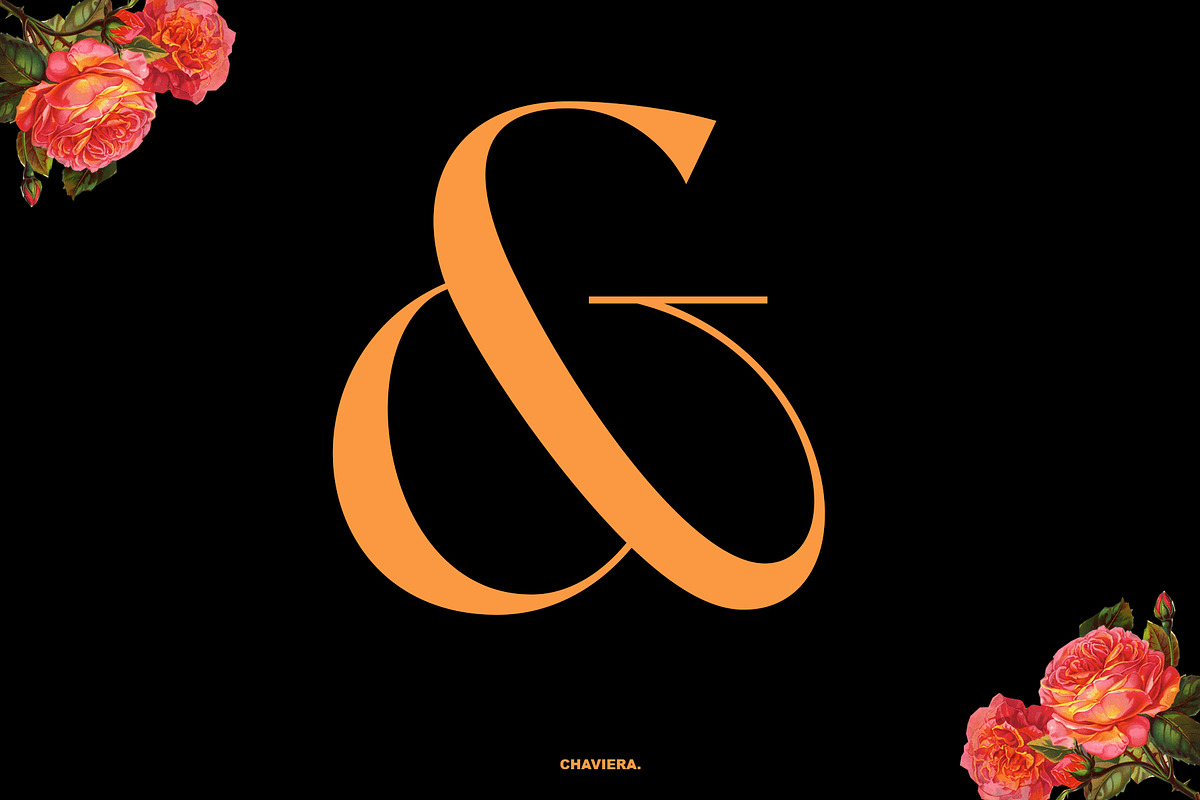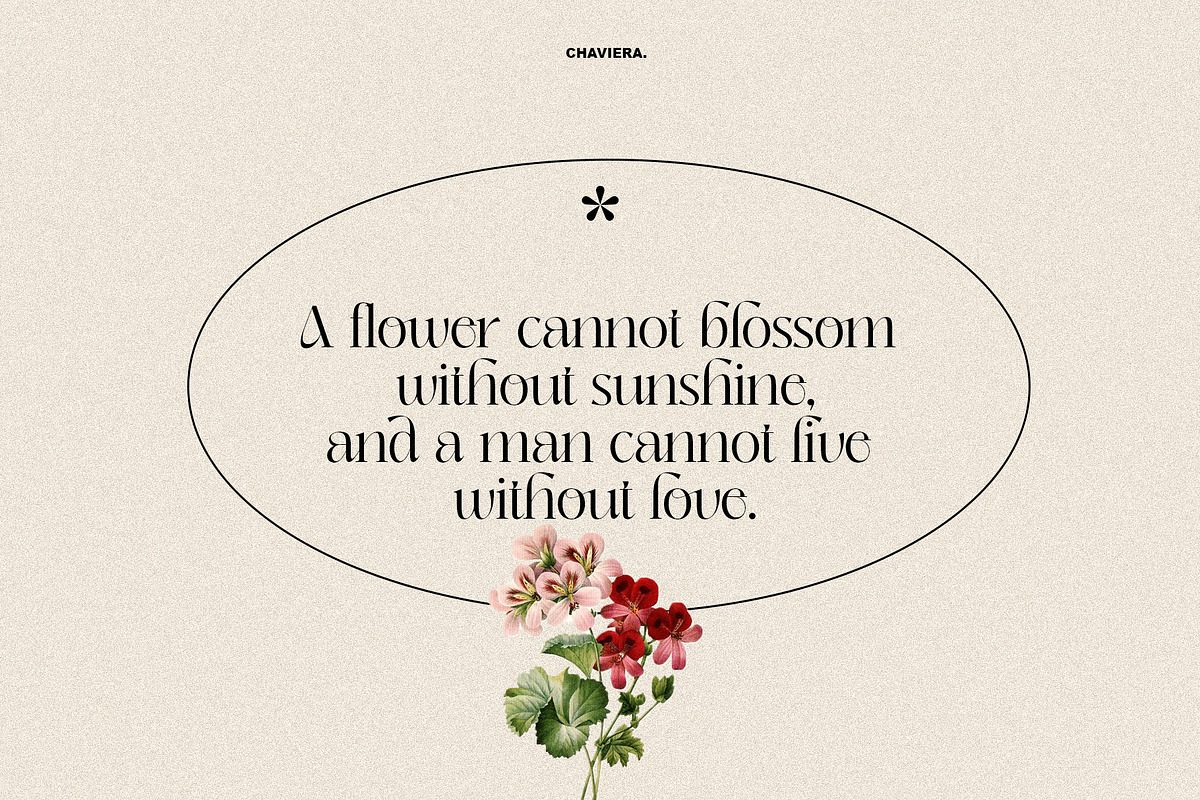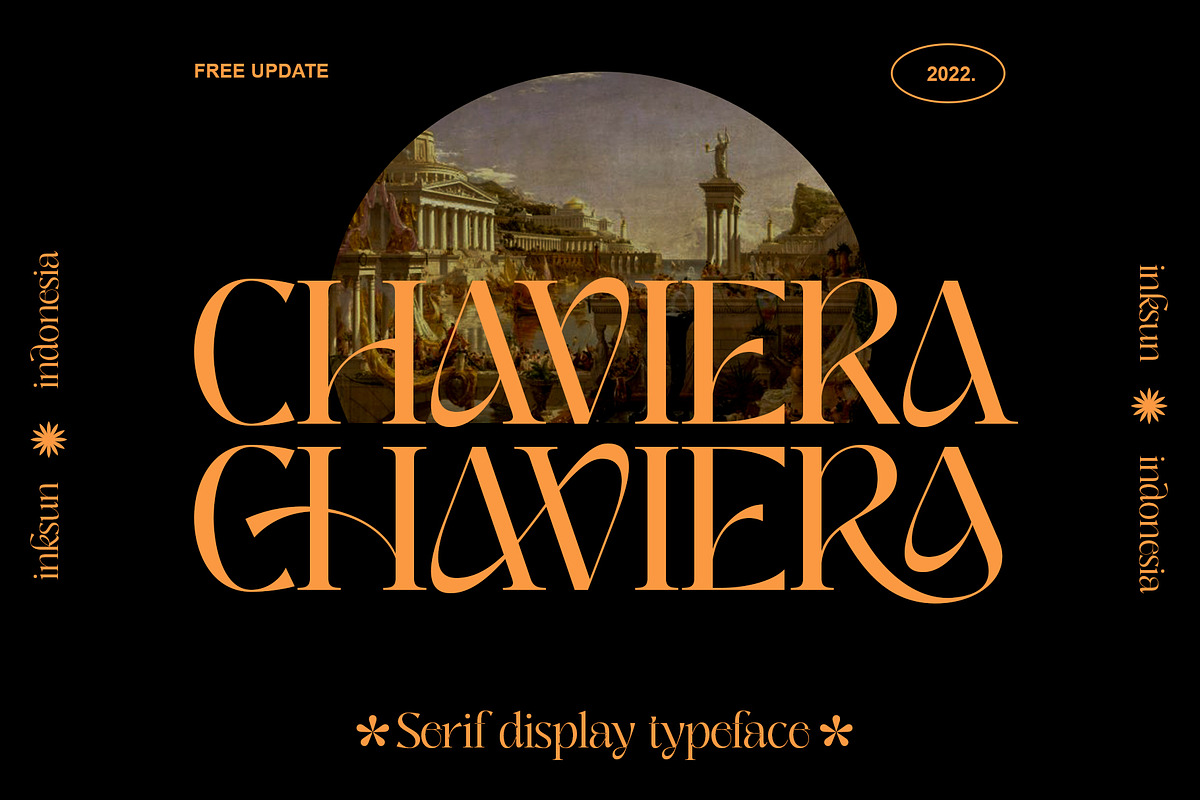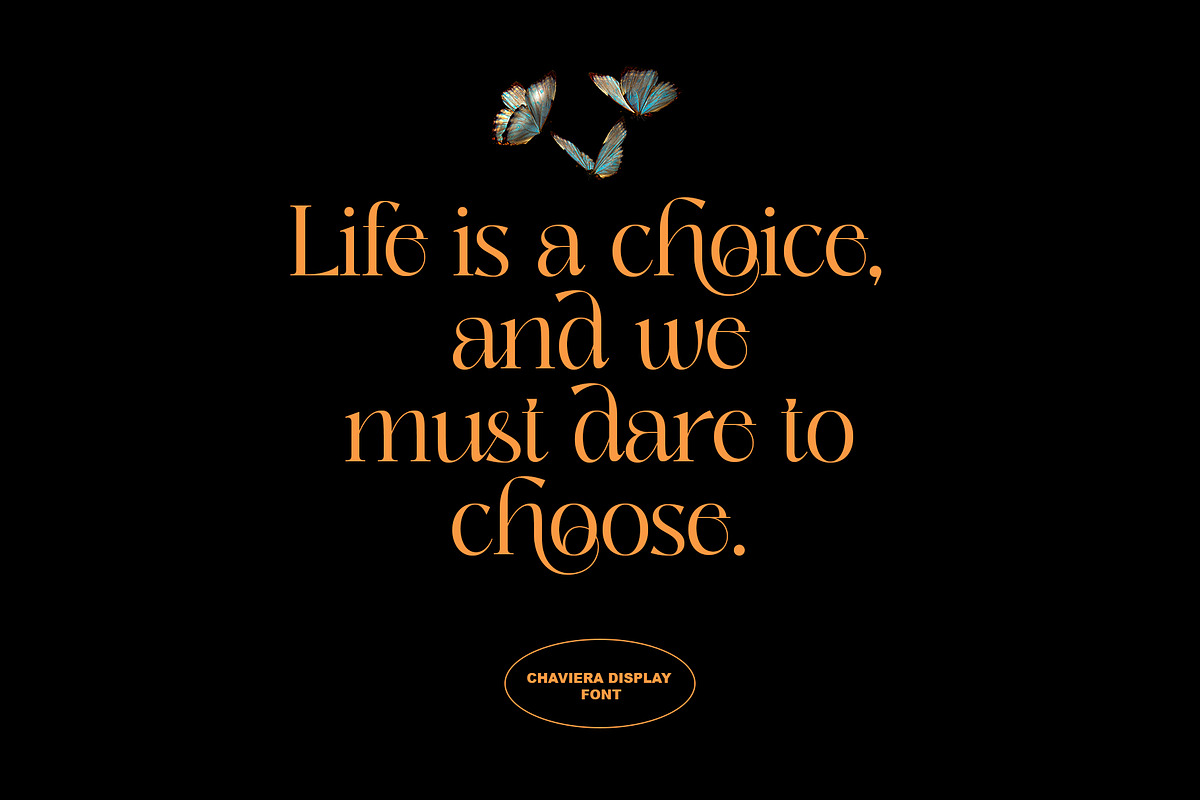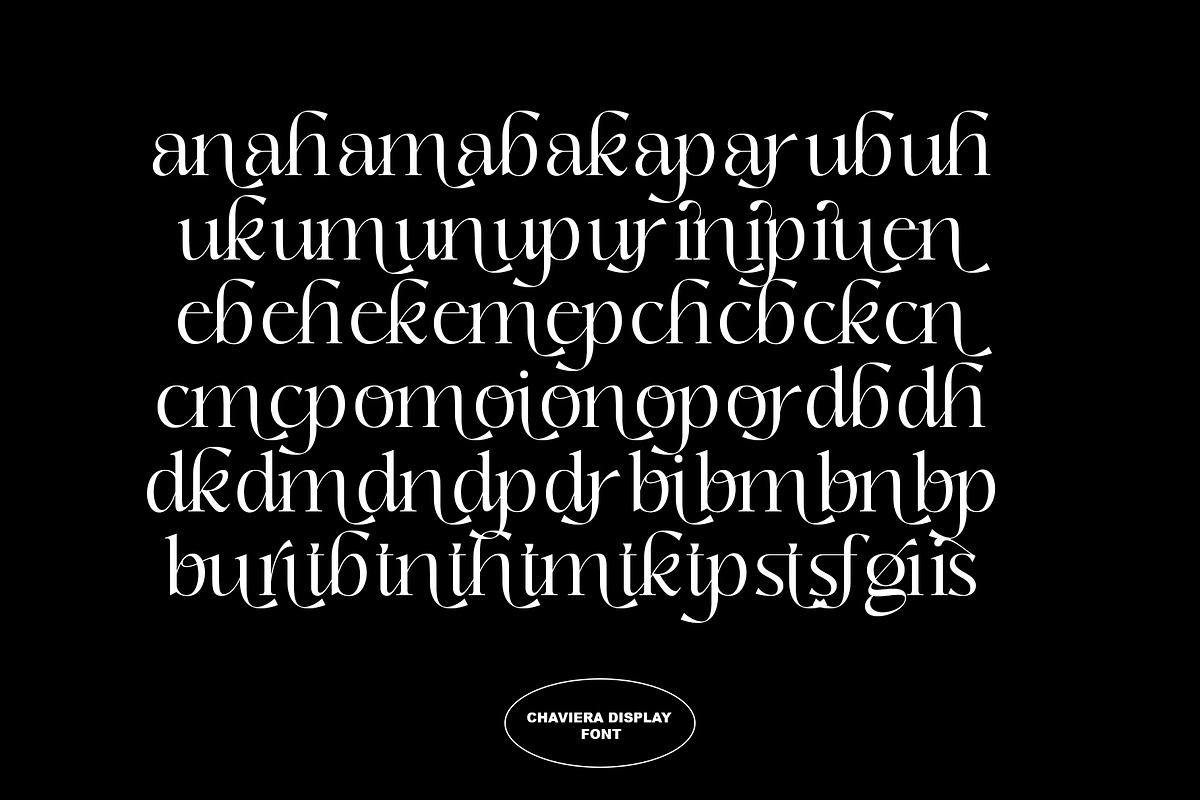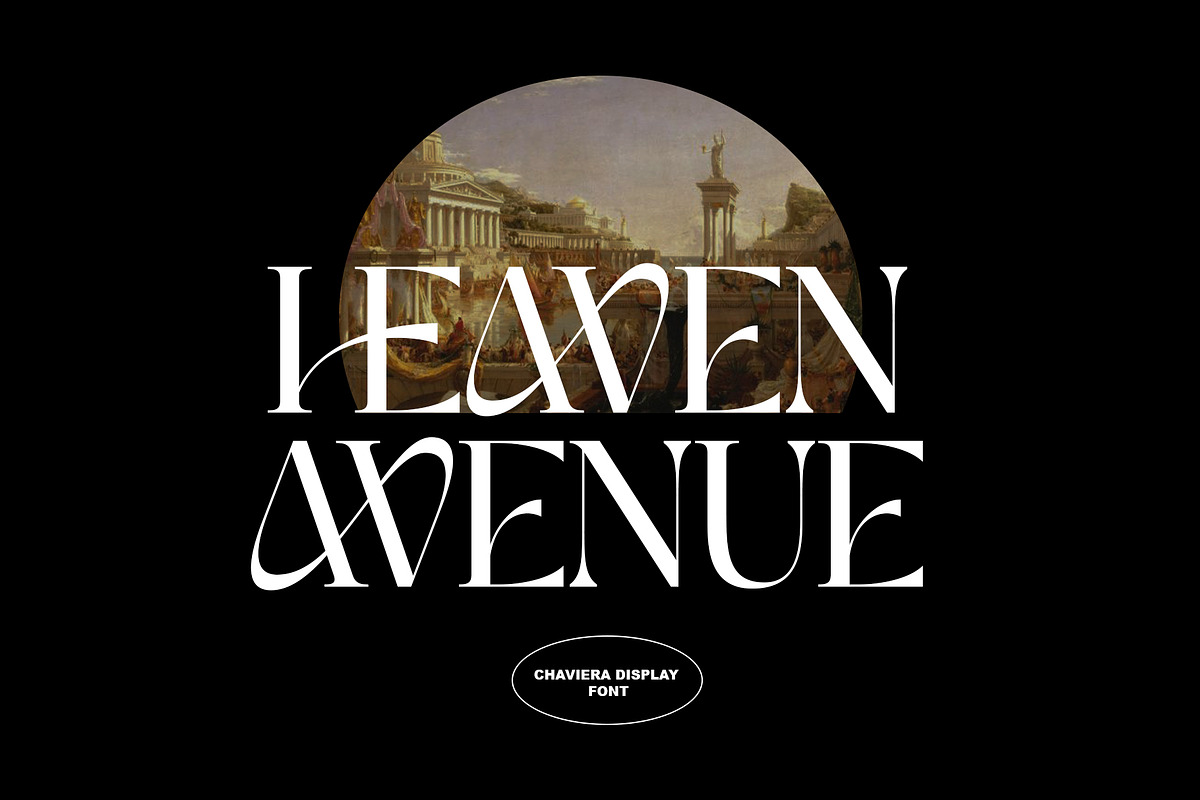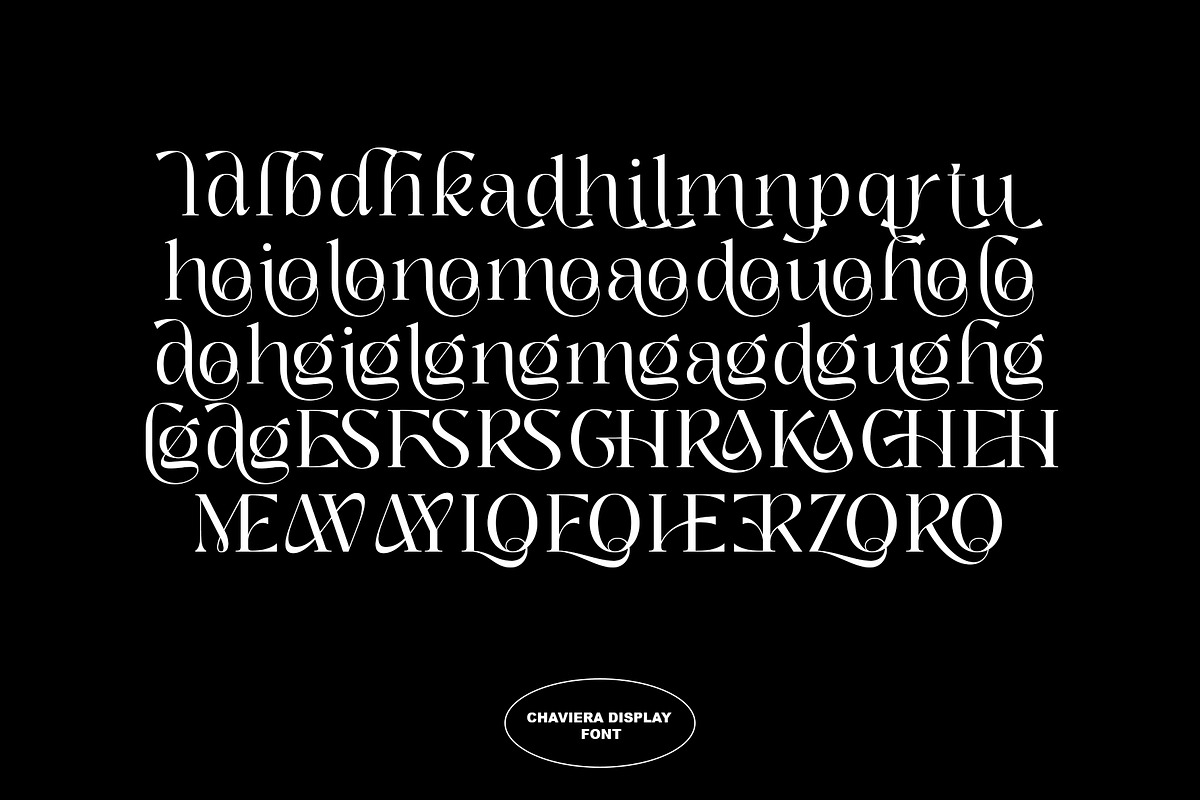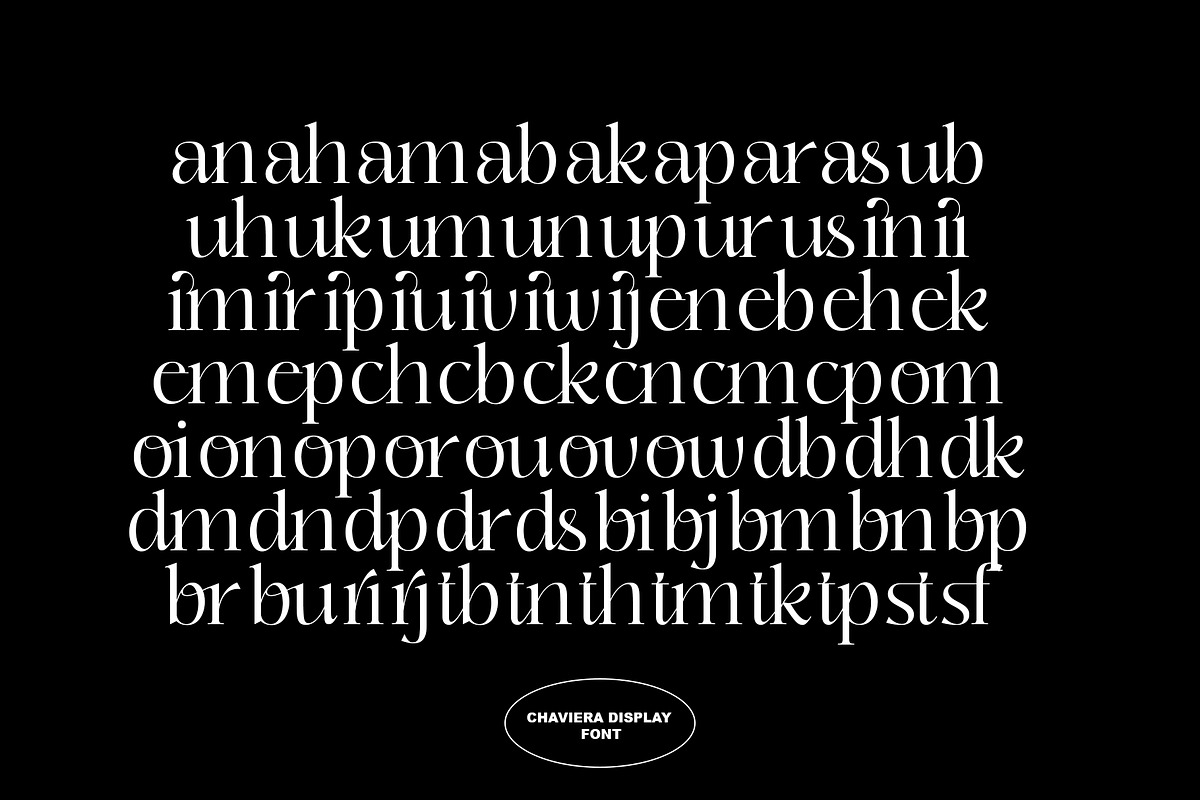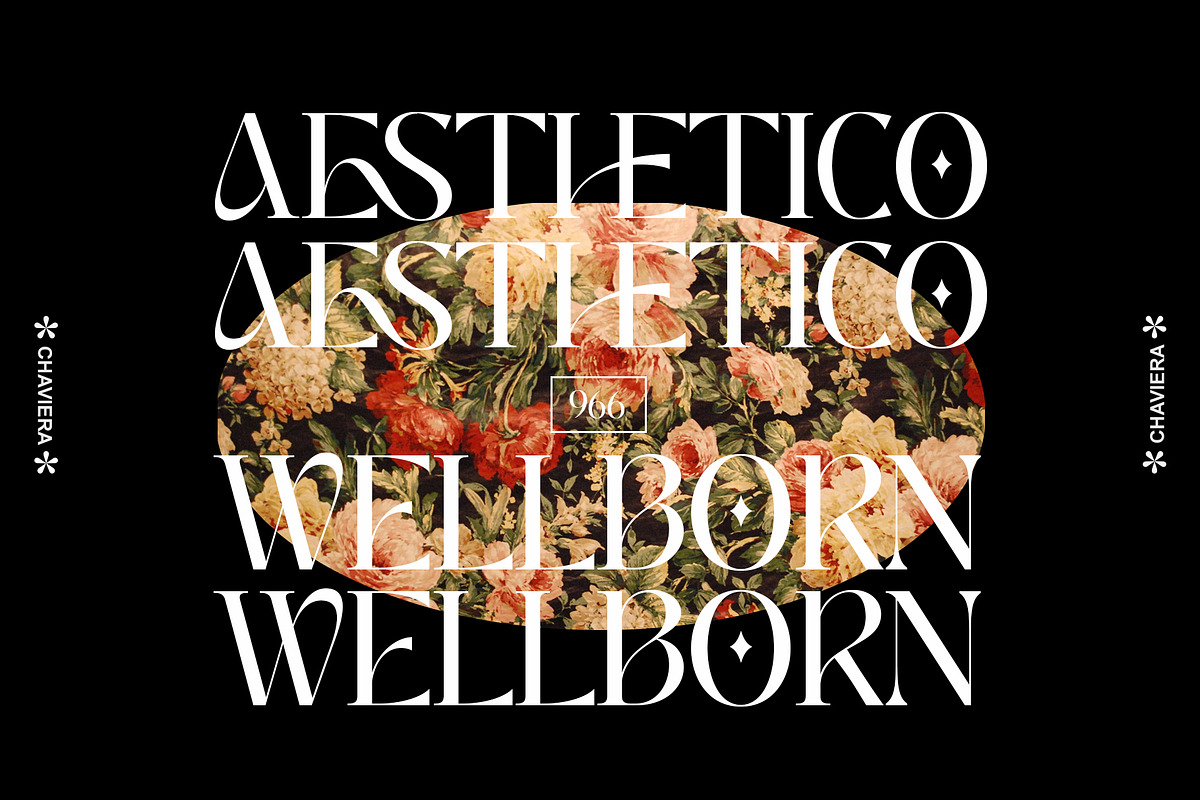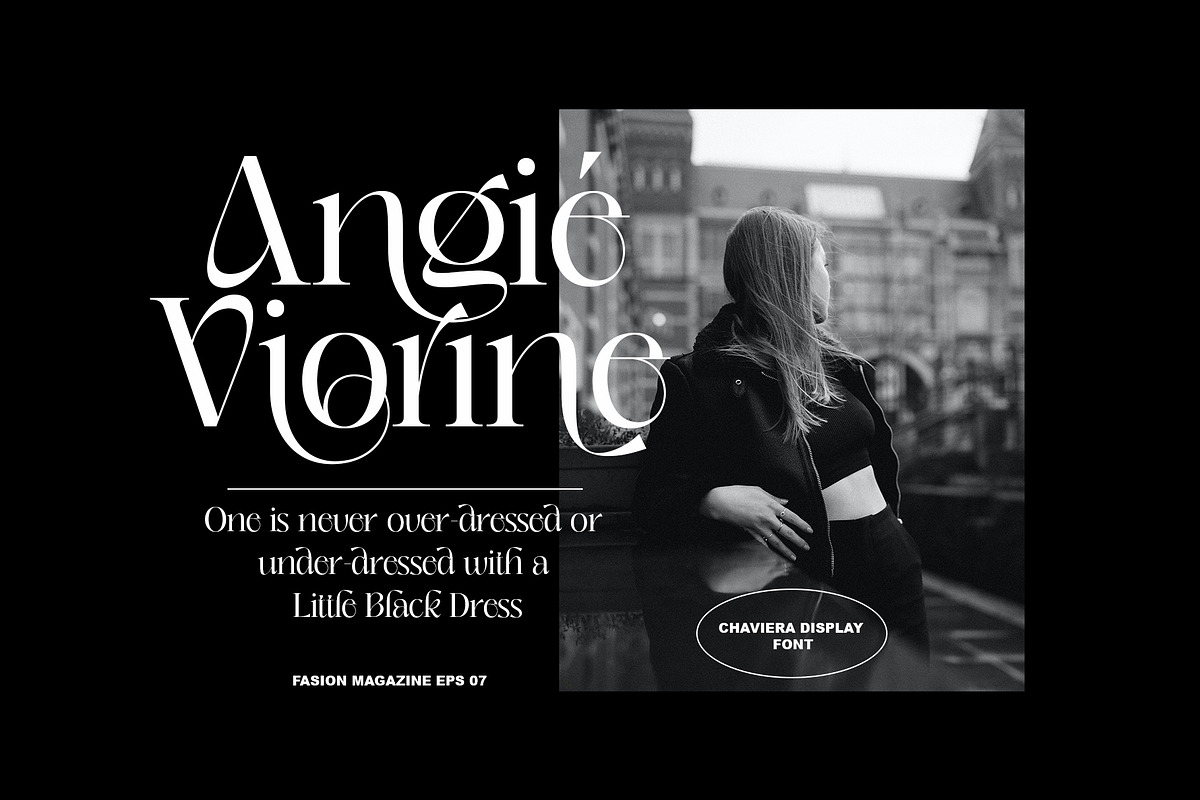
Chaviera
More information about this Font Hello, this time we would like to introduce a new product. namely Chaviera, a Serif display font that has a classic, feminine, and elegant style wrapped with a beautiful Alternate stylist.
The Chaviera font is perfect for various projects like logos & branding, invitations, stationery, wedding designs, social media posts, advertisements, printed quotes, product packaging, product designs, labels, photography, watermarks, special events or anything else.
- Numeral
- Functional
- Stylistic